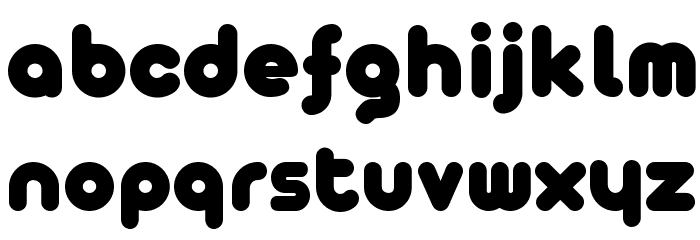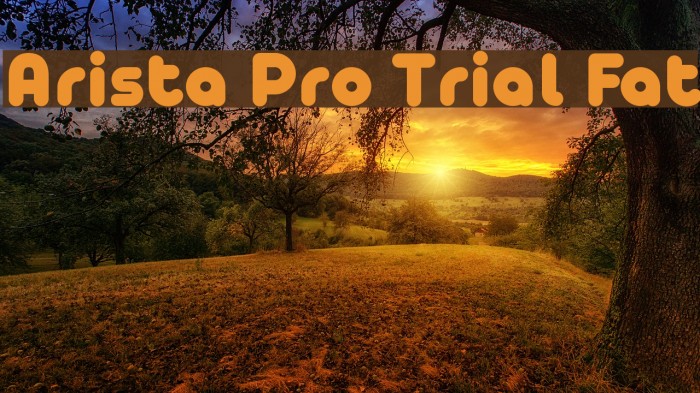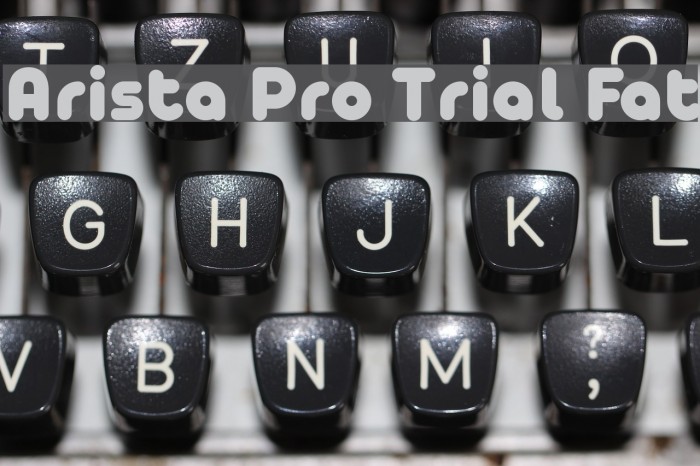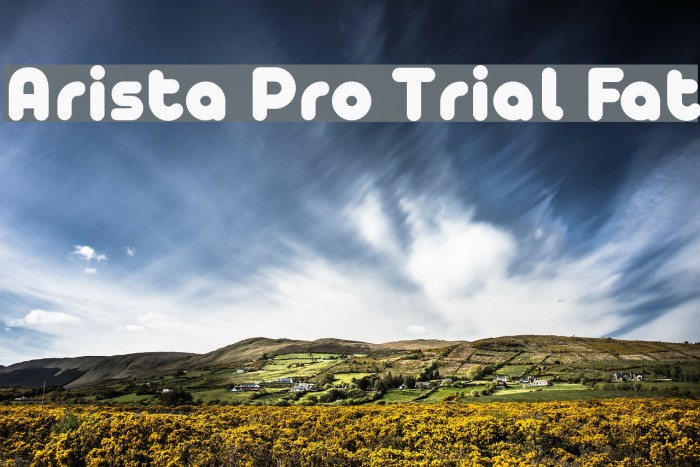
Arista Pro Trial Fat Font
This font features a bold and rounded style, characterized by its thick, uniform strokes and smooth curves. The letters are evenly spaced, providing a clean and modern appearance. Its playful and friendly design makes it suitable for a variety of creative projects. The uppercase and lowercase letters maintain a consistent weight, enhancing readability while adding a touch of whimsy. The numerals and special characters are designed with the same rounded aesthetic, ensuring a cohesive look across all text elements.
A bold, rounded font with a playful and modern style.
- Proposed Projects: Ideal for children's books, playful branding, posters, and social media graphics.